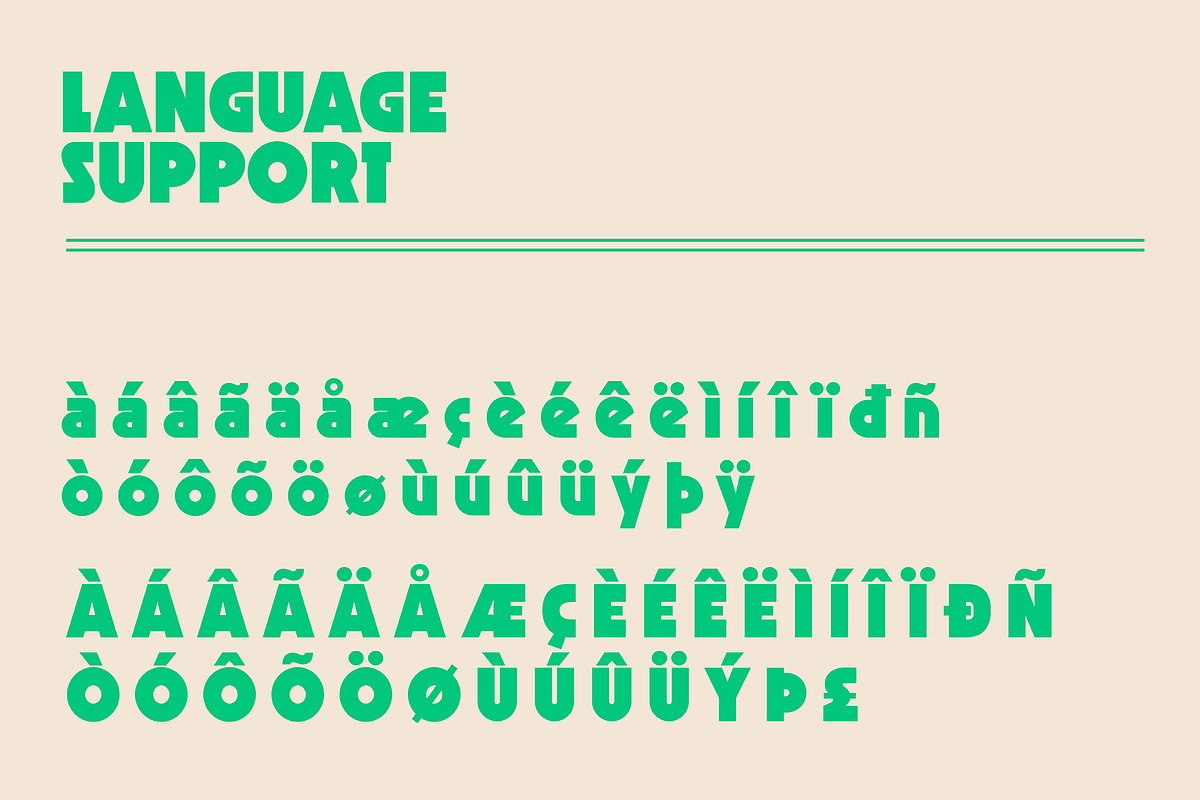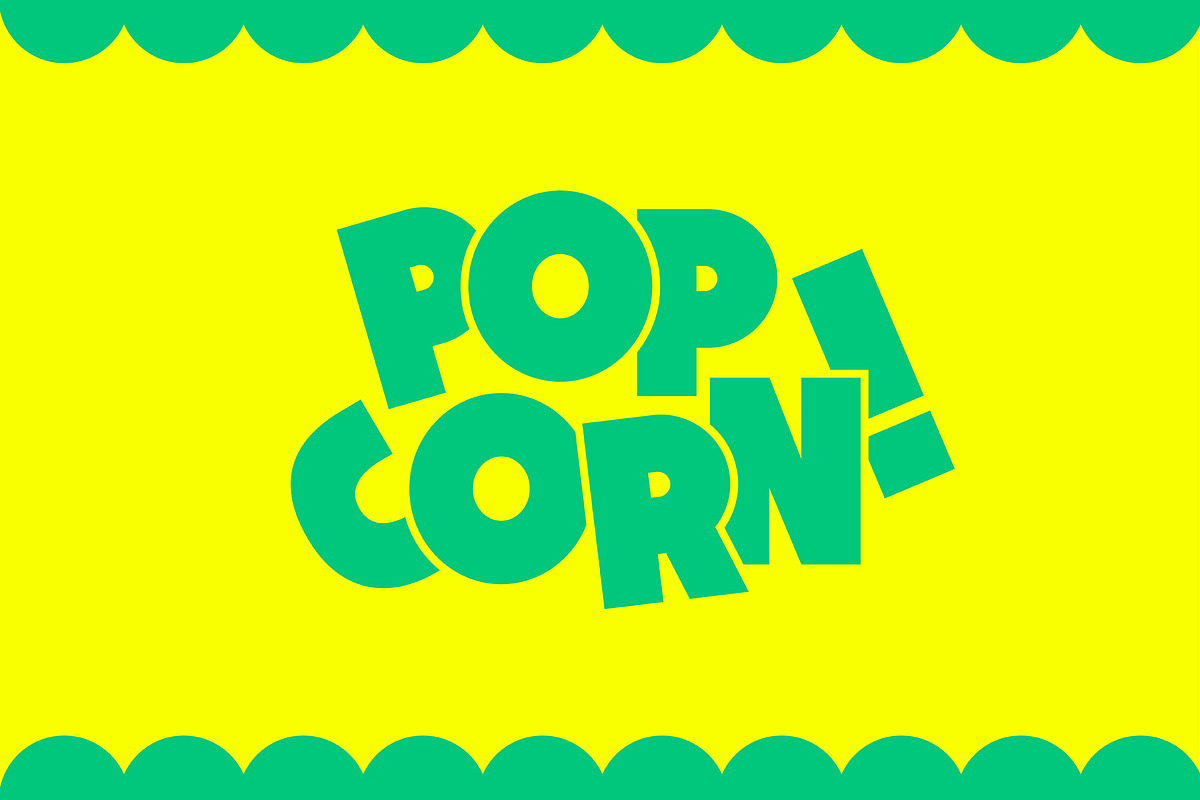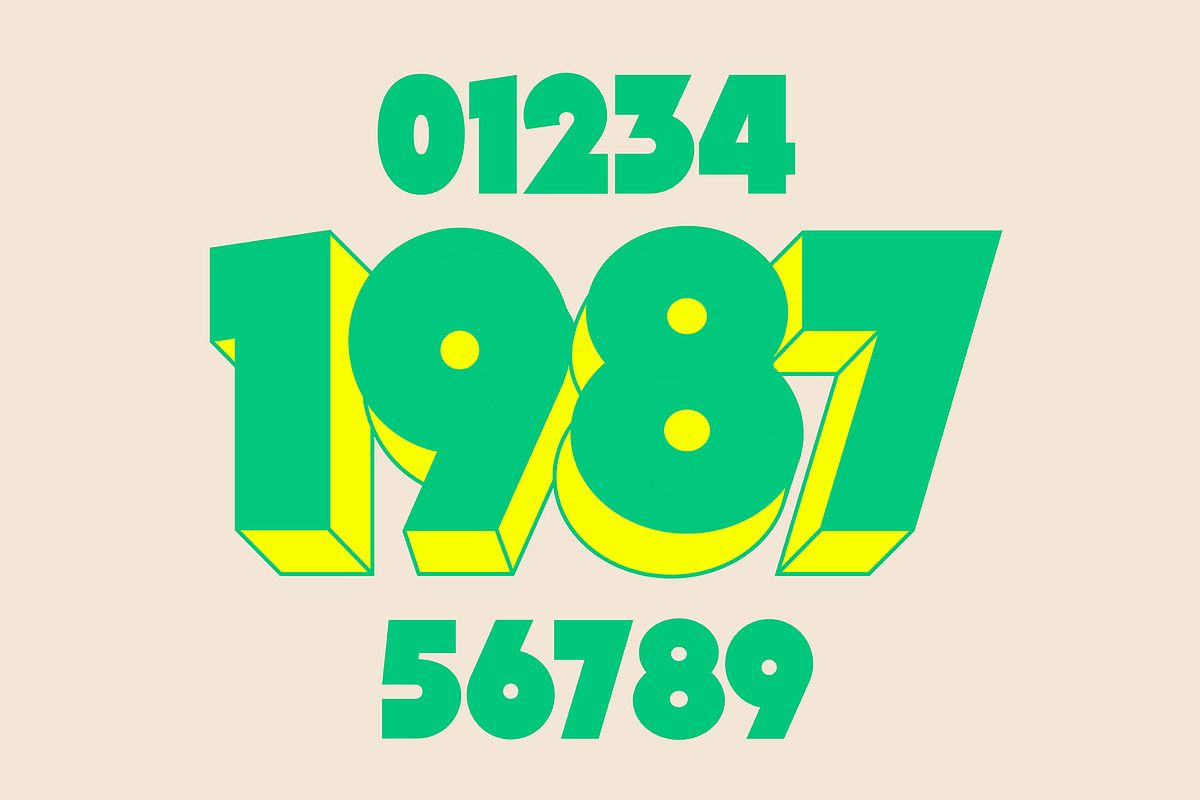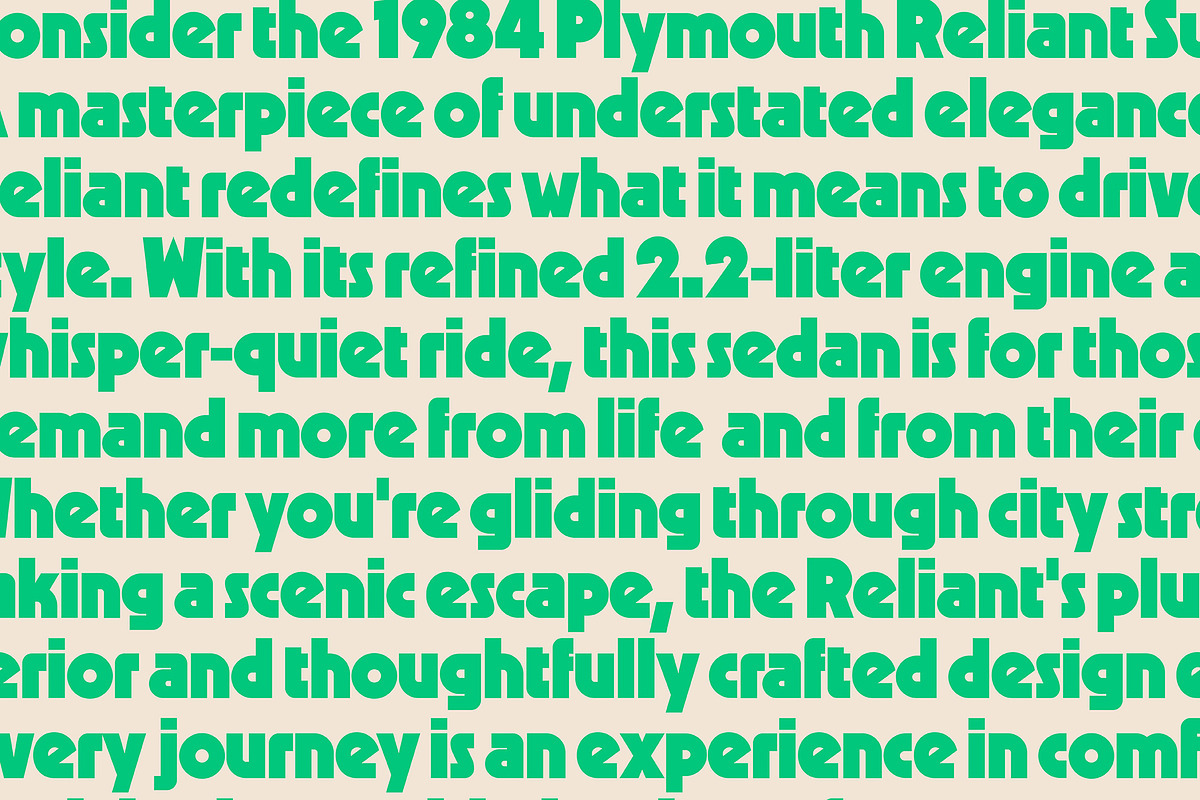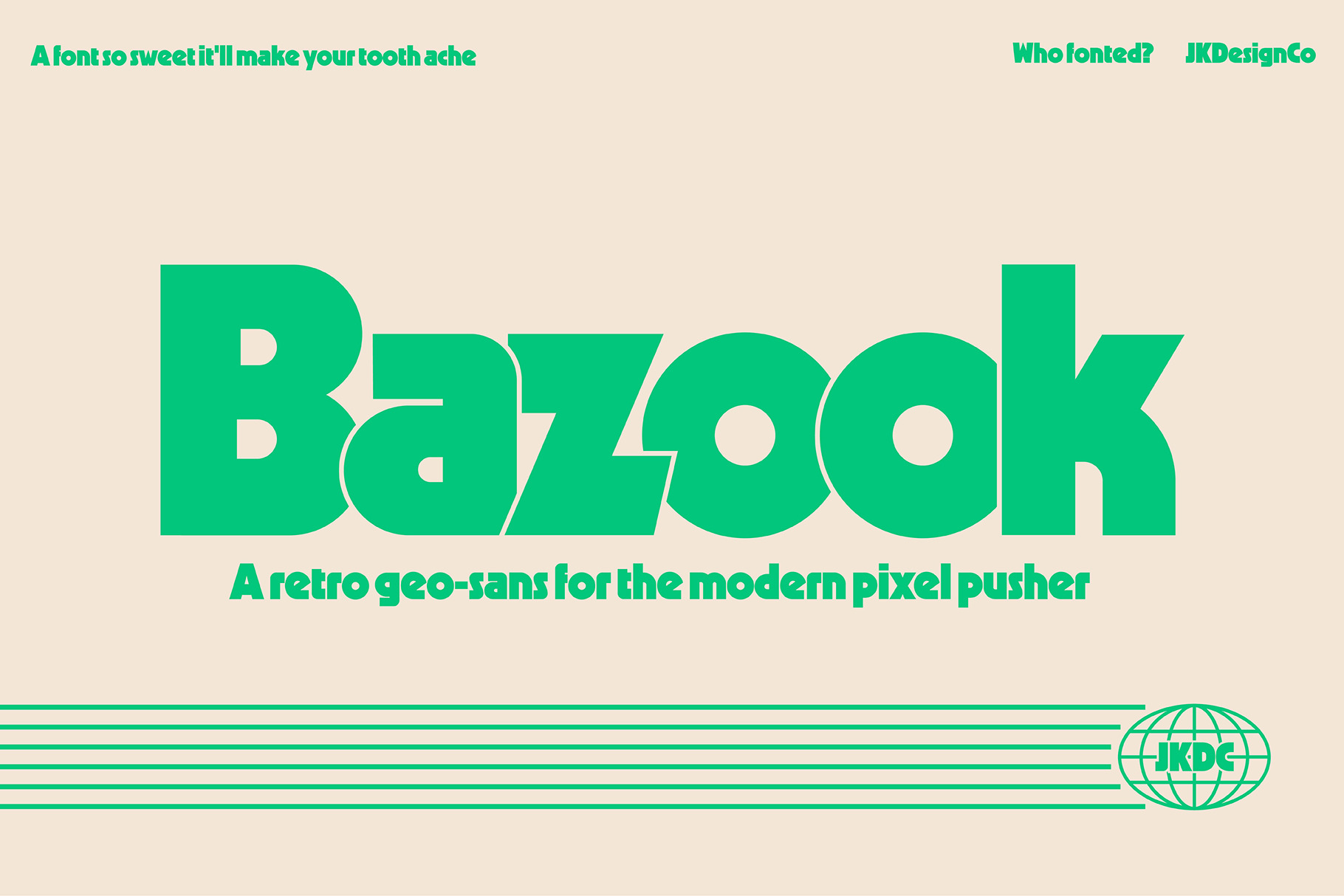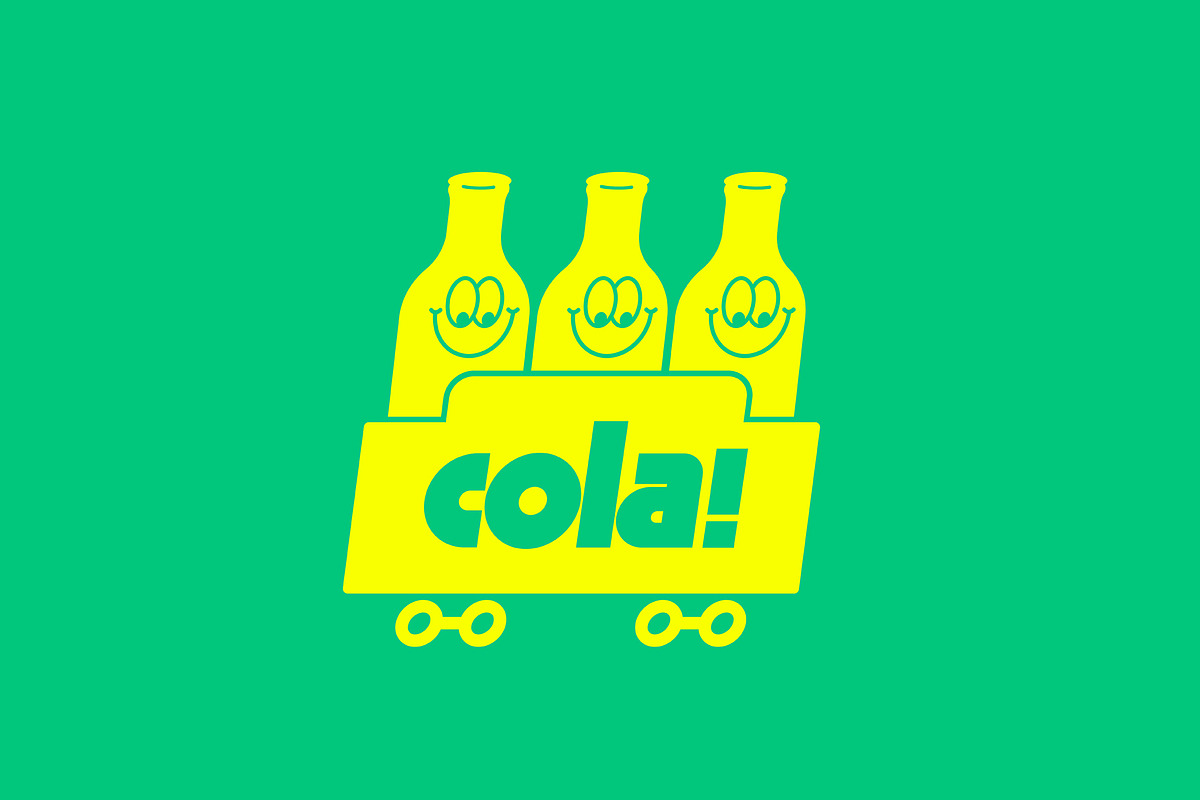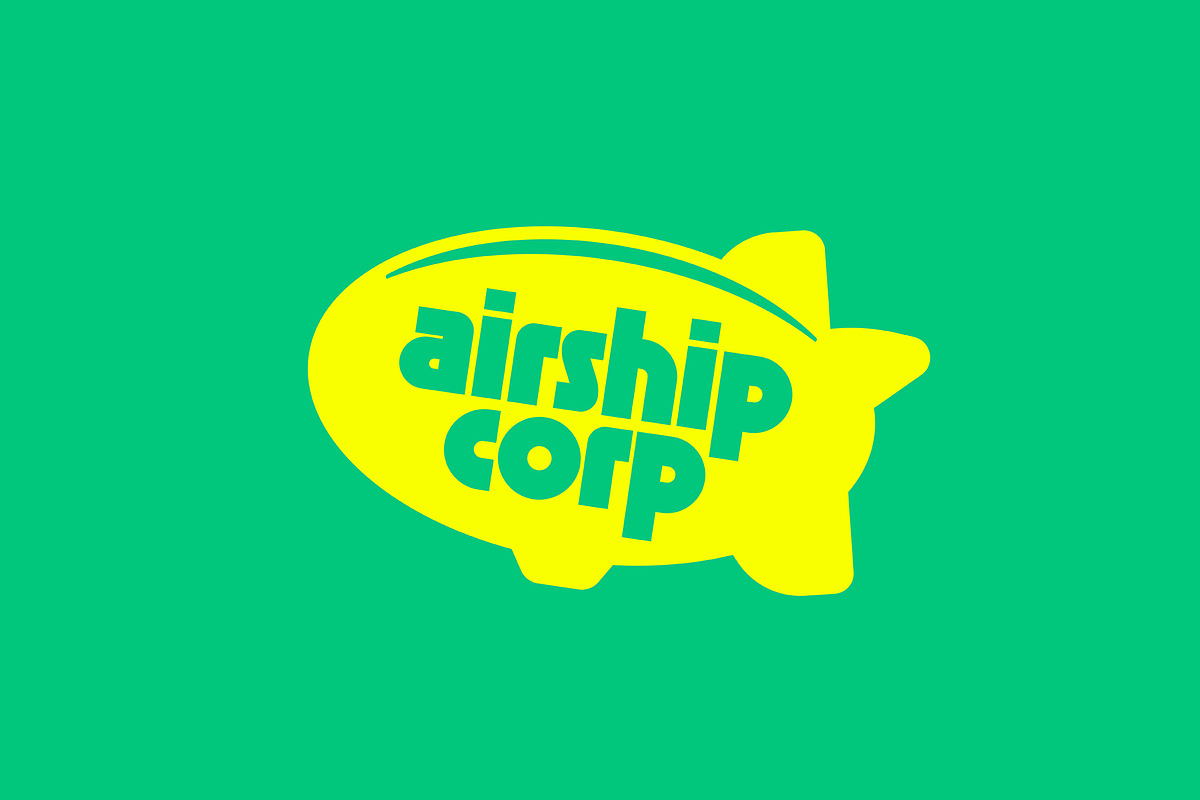
Bazook - A Retro Geo-Sans Font
ABOUT
Bazook is a beefy, techy, geometric sans font that’s sure to resonate with the 80’s kid in us all. Yes, those wonderful days of temporary tattoos, fizzy drinks and sugary cereal sure made for some funky fonts. Loosely inspired by classics like “Kabel” and “Geo 231”, Bazook scratches that ultra-bold geometric sans itch we all have. It’s equally sharp-edged as it is bubbly, perfect for the front of a cassette tape or the back of a sugary cereal box.
Test Bazook on a retro packaging project, or give your next brand update a fresh but nostalgic flair. It’s just asking to be paired with bold colors and loud headlines.
1 style: Bazook Regular
Diacritics & Umlauts - Multi-language support through glyphs common in Latin script characters (English, French, Spanish, German, Swedish, Norwegian, Danish